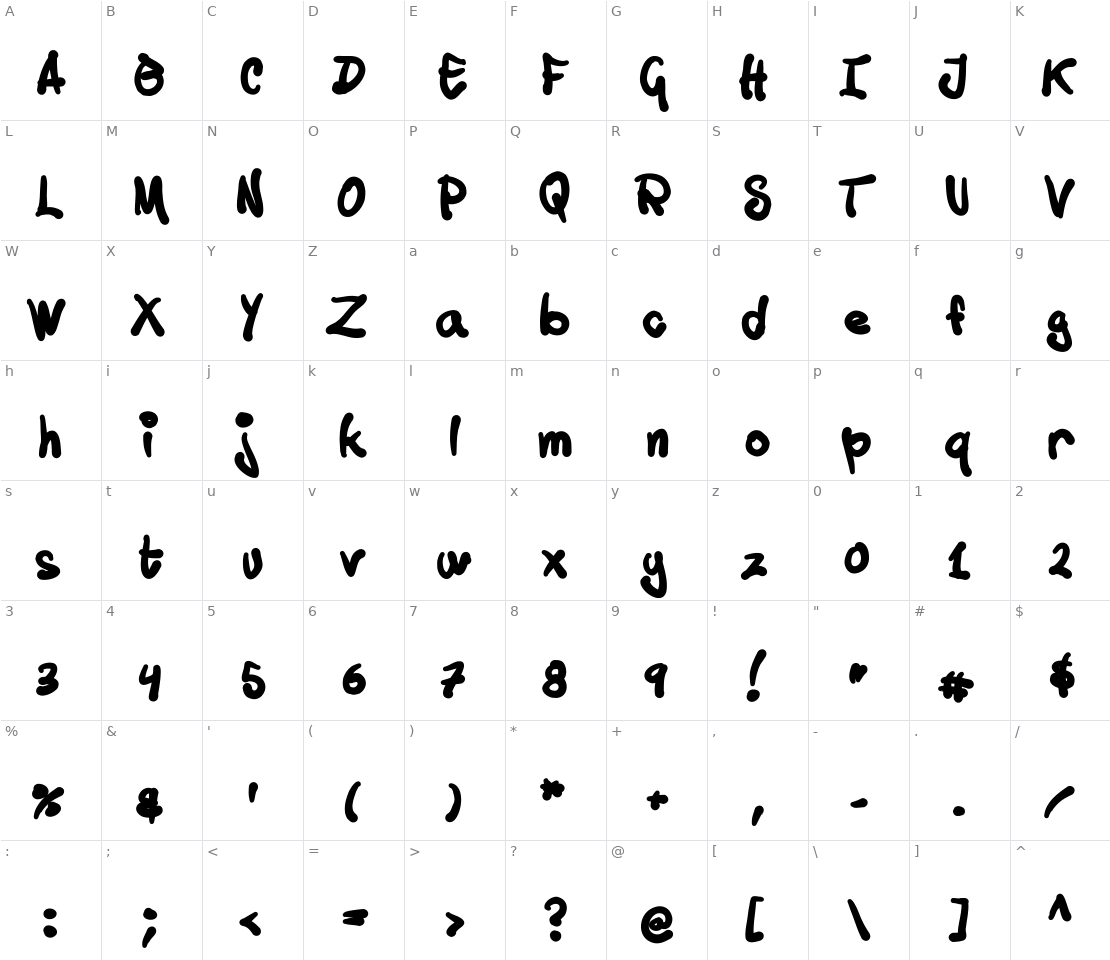
Tusch Touch
Tusch Touch is a thick, rounded handwritten face by Måns Grebäck that captures the look of a broad-tipped marker pressed firmly onto paper. The letterforms are bold and playful with a casual looseness that feels spontaneous rather than designed, making it a strong pick for headlines, packaging, and display work where you want real handmade energy without sacrificing legibility.